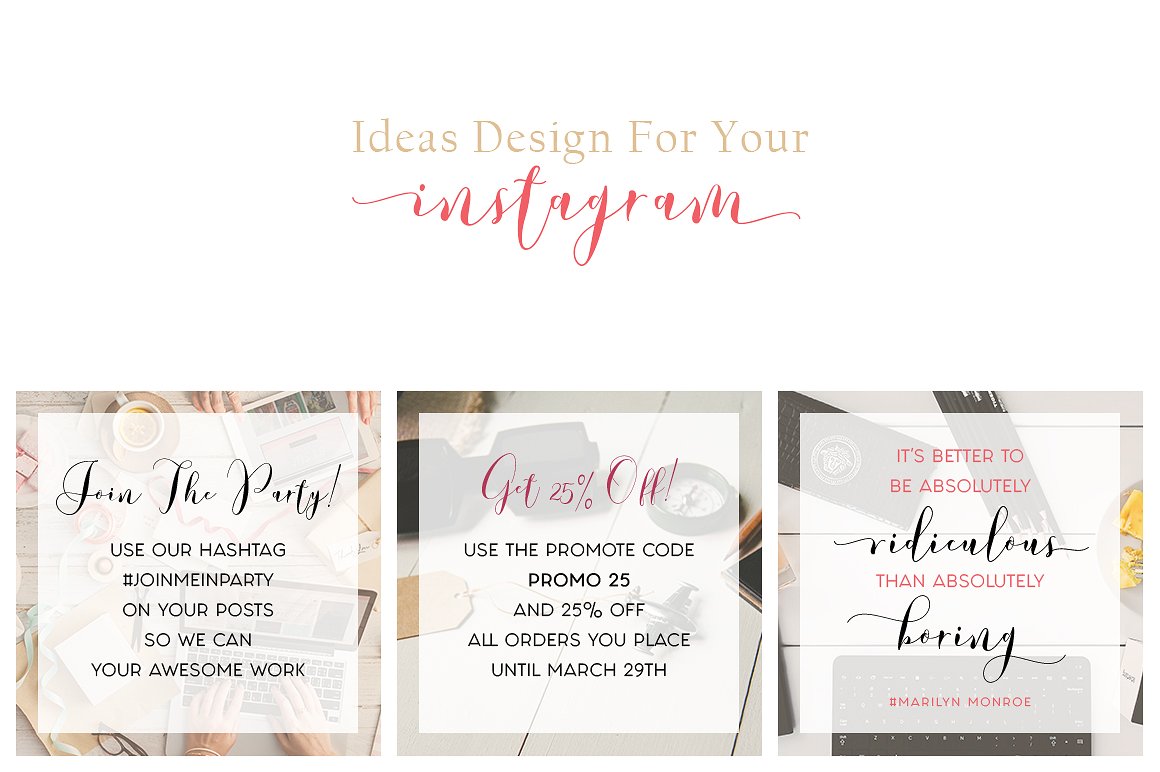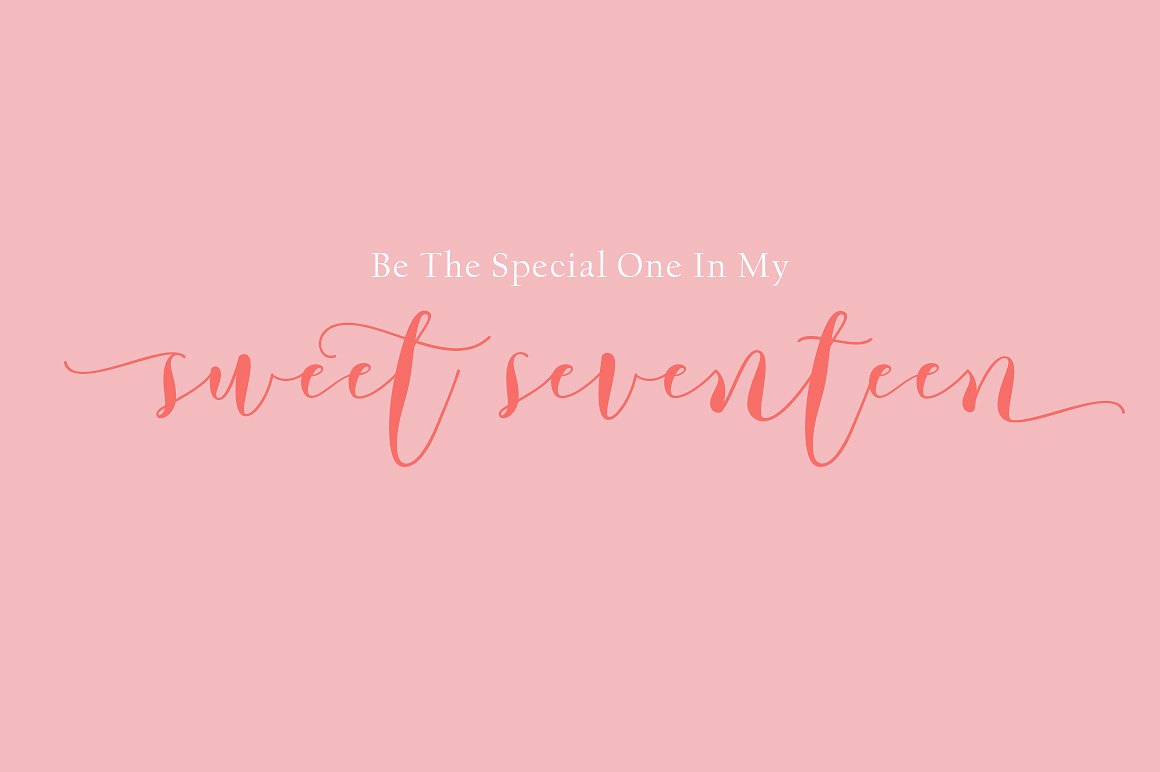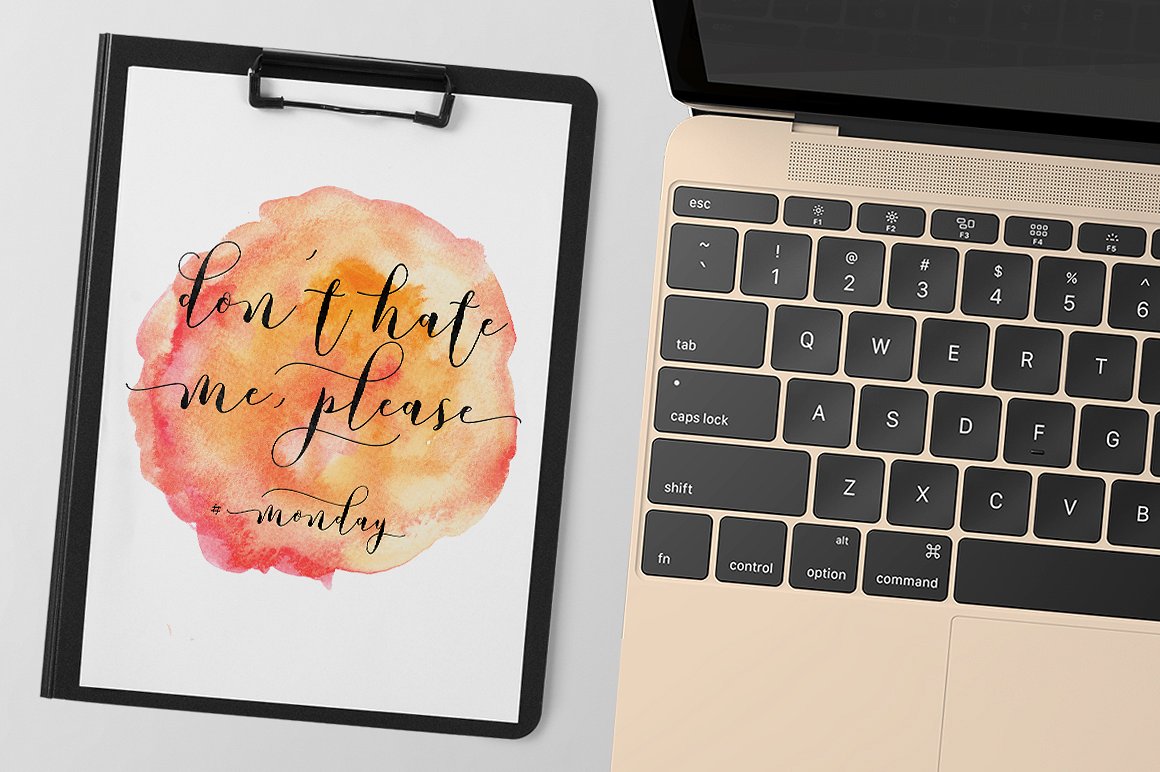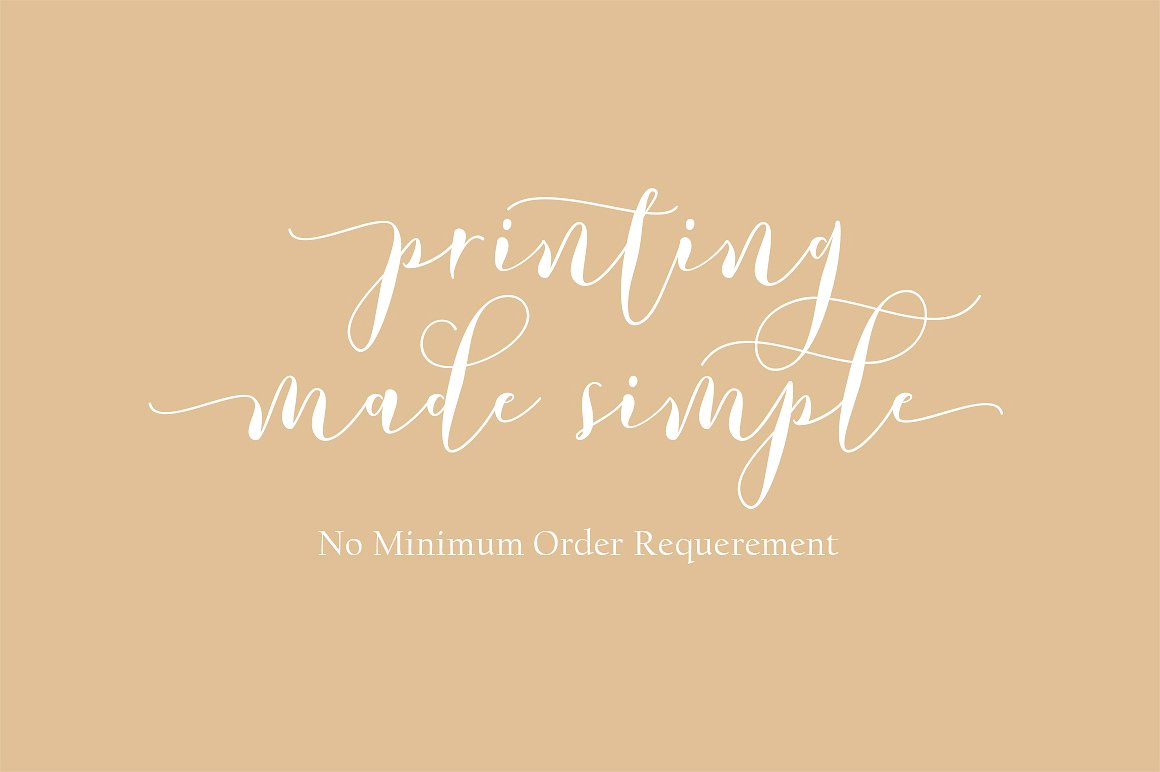
Lovely Dramatis Script Font
A new script font. It will be a perfect choice for your work. Add it to your fonts collection now! Introducing Lovely Dramatis Font. LOVELY DRAMATIS is a modern script typeface, this font very easy to use and really playful. You can explore to create a combination that would have been nice. Come with modern style, handmade and clean. LOVELY DRAMATIS, including swashes, ligatures, Alternate and International support for most Western Languages is included. LOVELY DRAMATIS come with 484 glyphs.